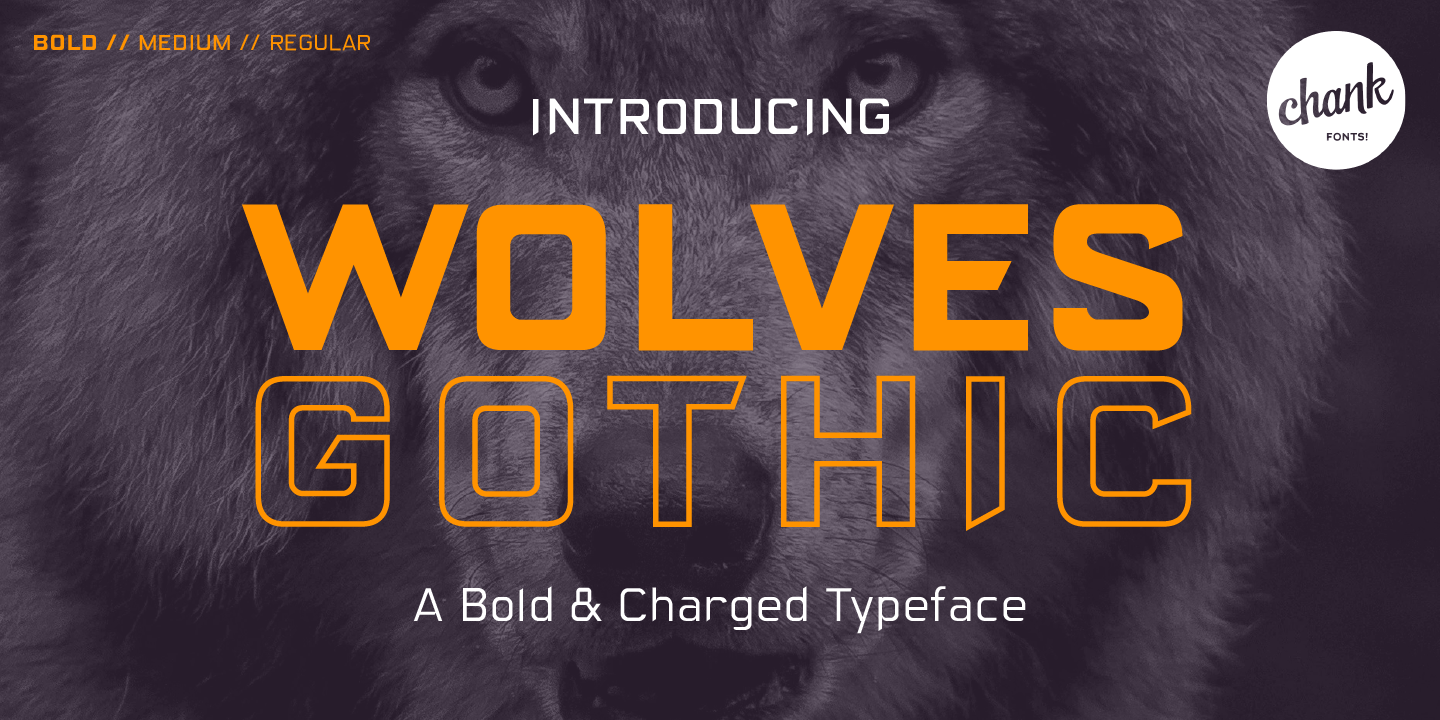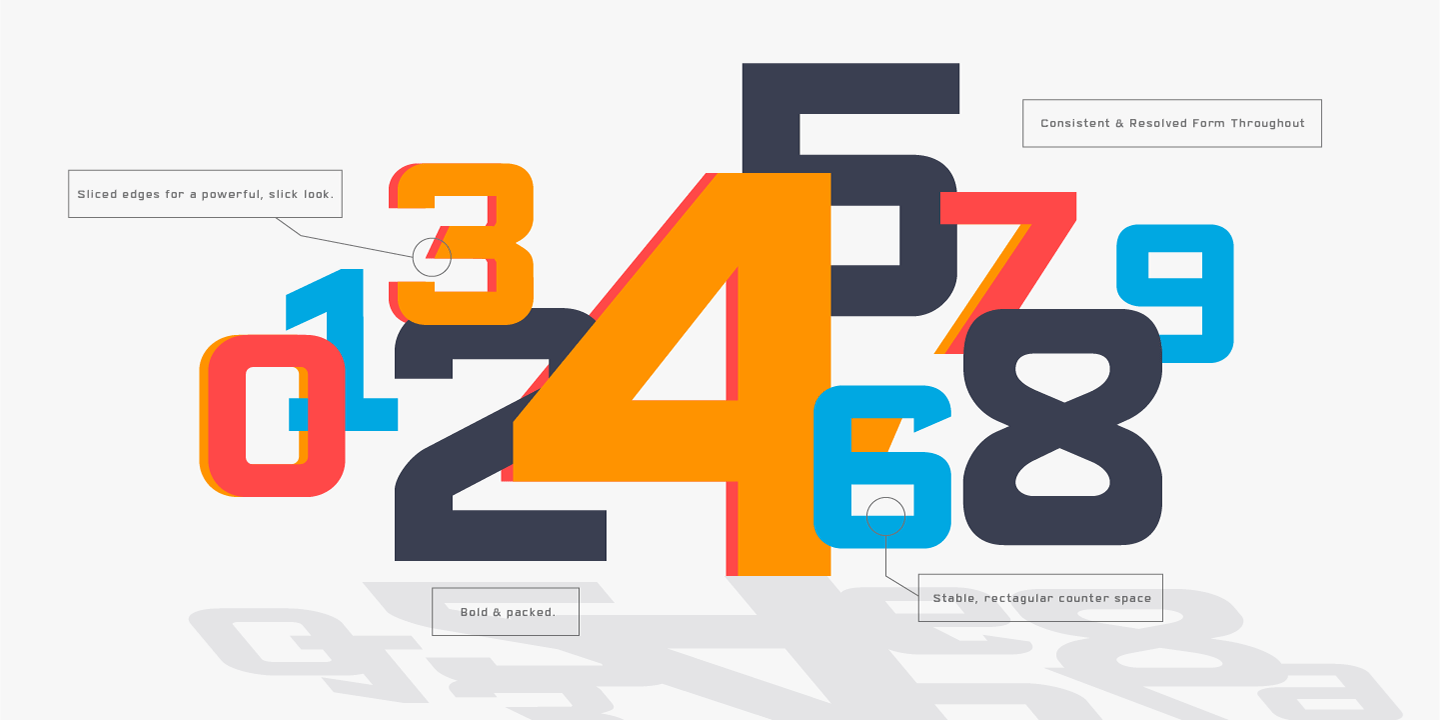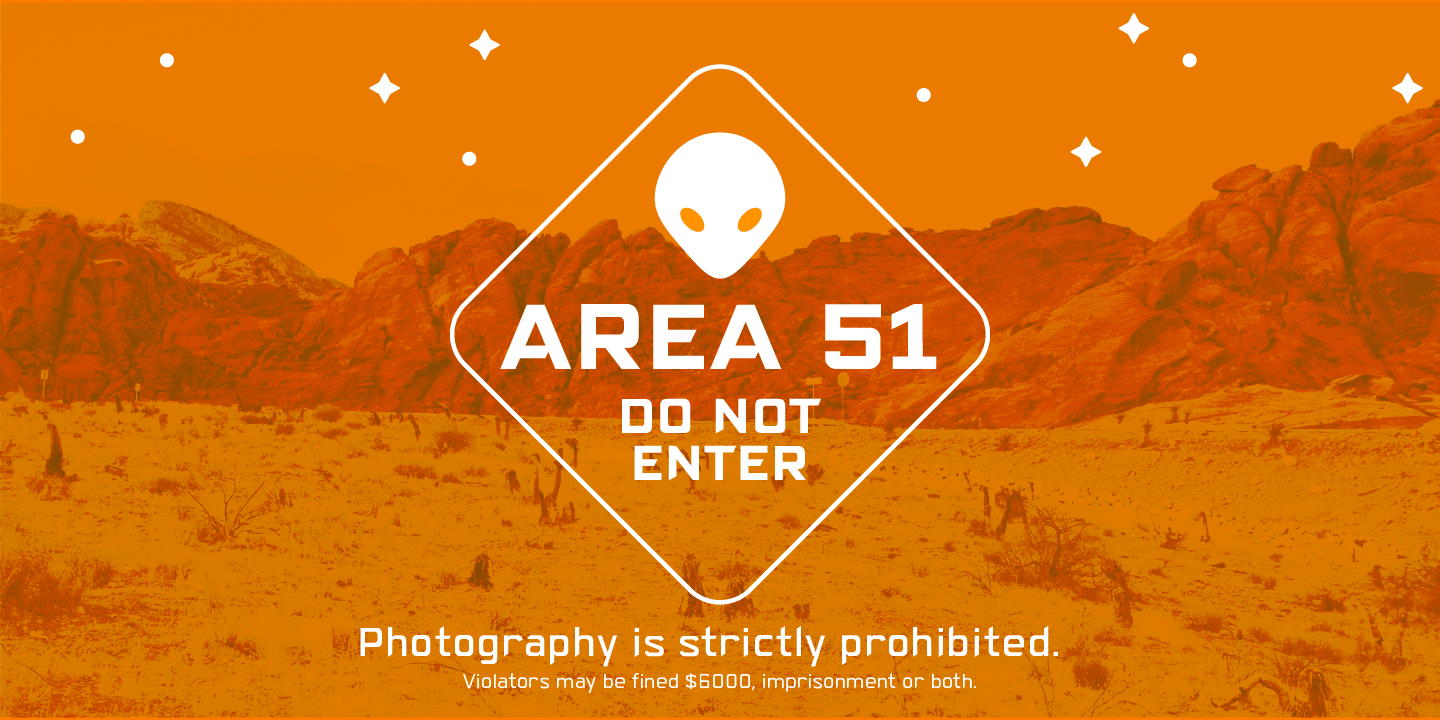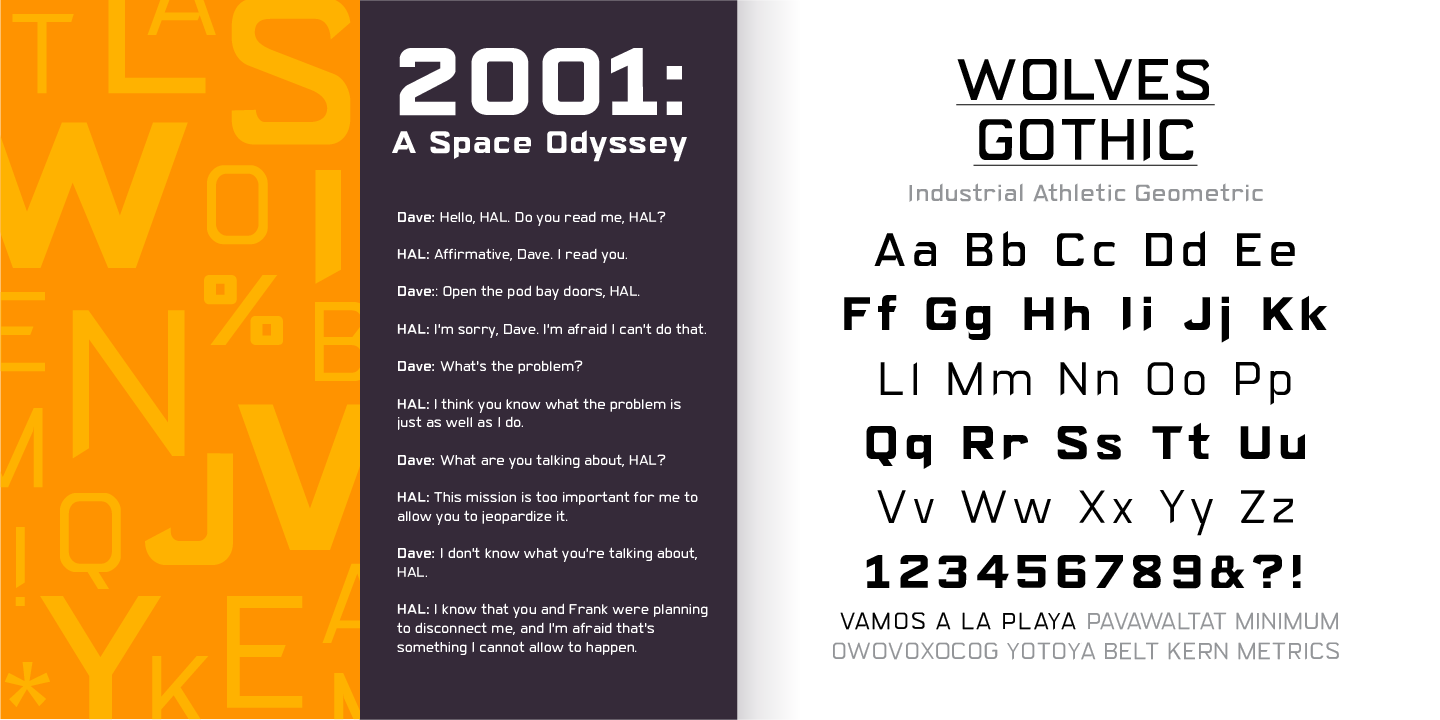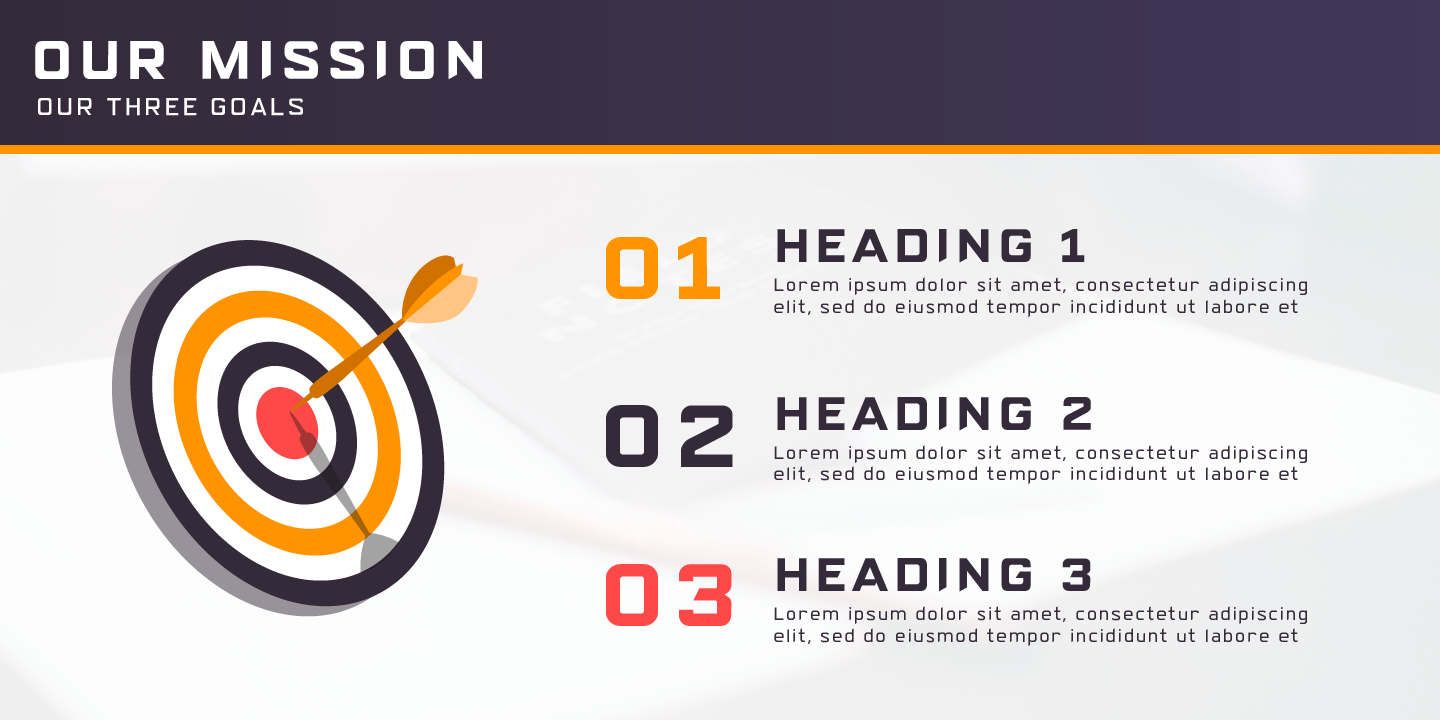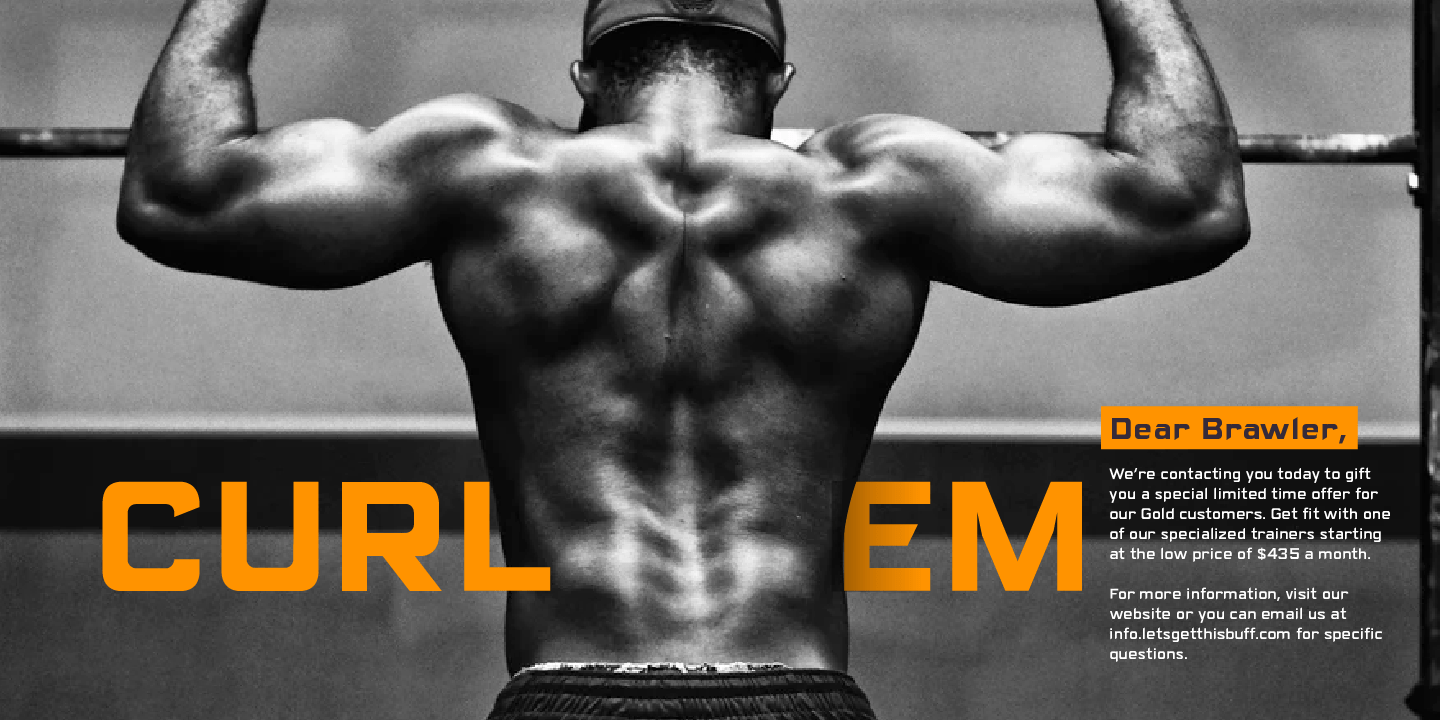
Wolves Gothic
Font Family by Chank Co
Make a little extra impact with this strong athletic font with big geometric muscles, clean lines and sharp teeth, too. Originally created for a local pro basketball team in Minnesota, this sporty and big-shoulder poster font is now available directly to you for the first time ever to add some punch to your printed or web designs. Crisp and clear and ready for action a concise variety of weights and styles! For team sports that expect academic excellence.